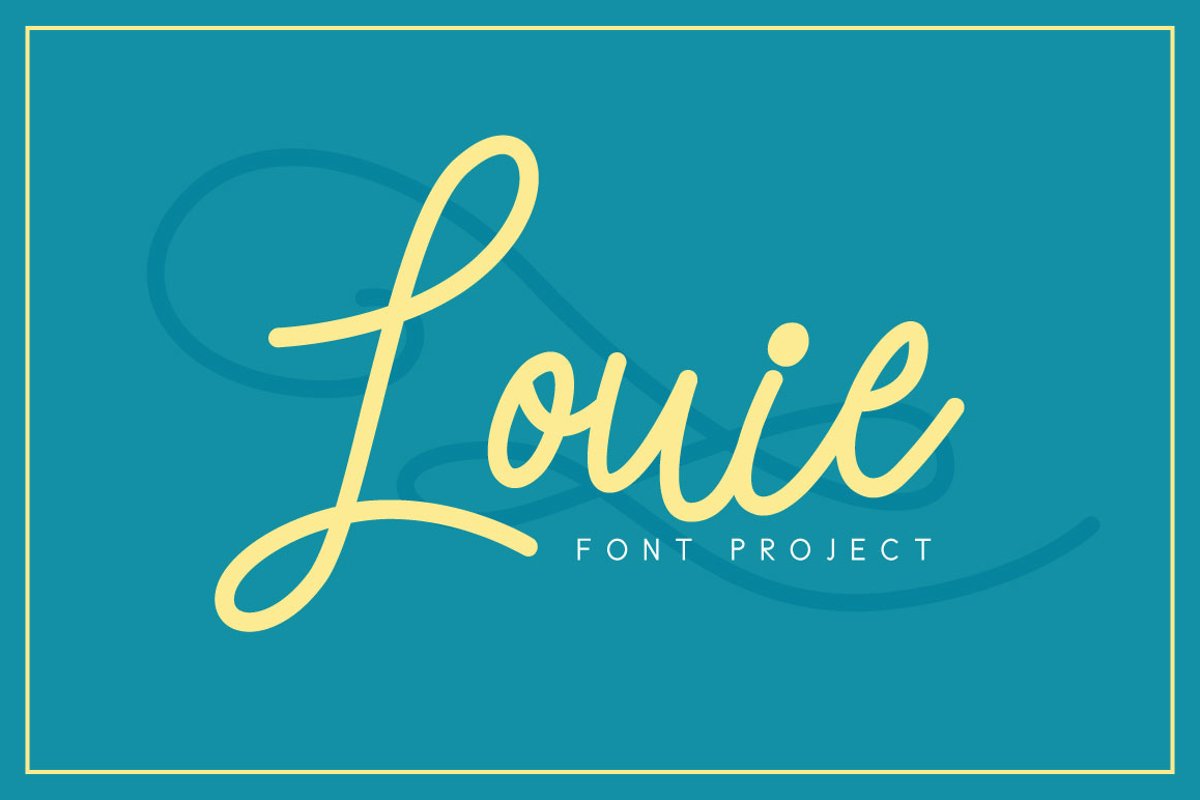
Presenting Louie
Marker Script Typeface,
a modern script-marker font
which is unique and carefully
shaped to create your text looks stunning. A signature script style typeface will craft a perfect expression for
many different projects such as quotes, blog header, poster, wedding, branding,
logo, fashion, apparel, letter, invitation, stationery, etc.
- Uppercase & lowercase
- Punctuation & numerals